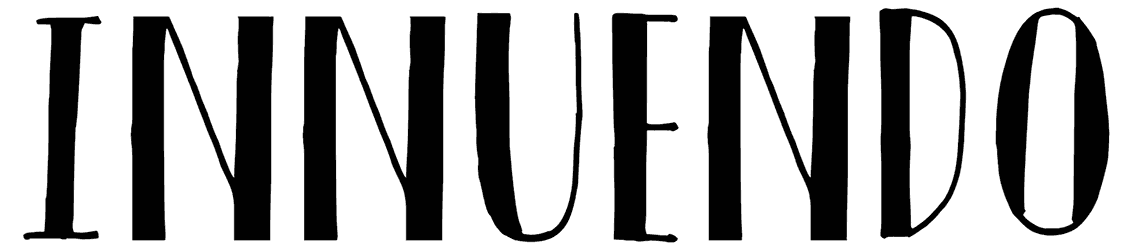
DK Innuendo Font
Designed byDavid Kerkhoff
Welcome to DK Innuendo, a magical all-caps font that instills a sense of classic, vintage, drama, or professionalism in the audience’s minds and strongly impresses them even at first glance. Considering the fact that it comes with well-rounded characters and curved edges, this masterpiece would fit your posters, video game banners, digital brochures, or social media posts.